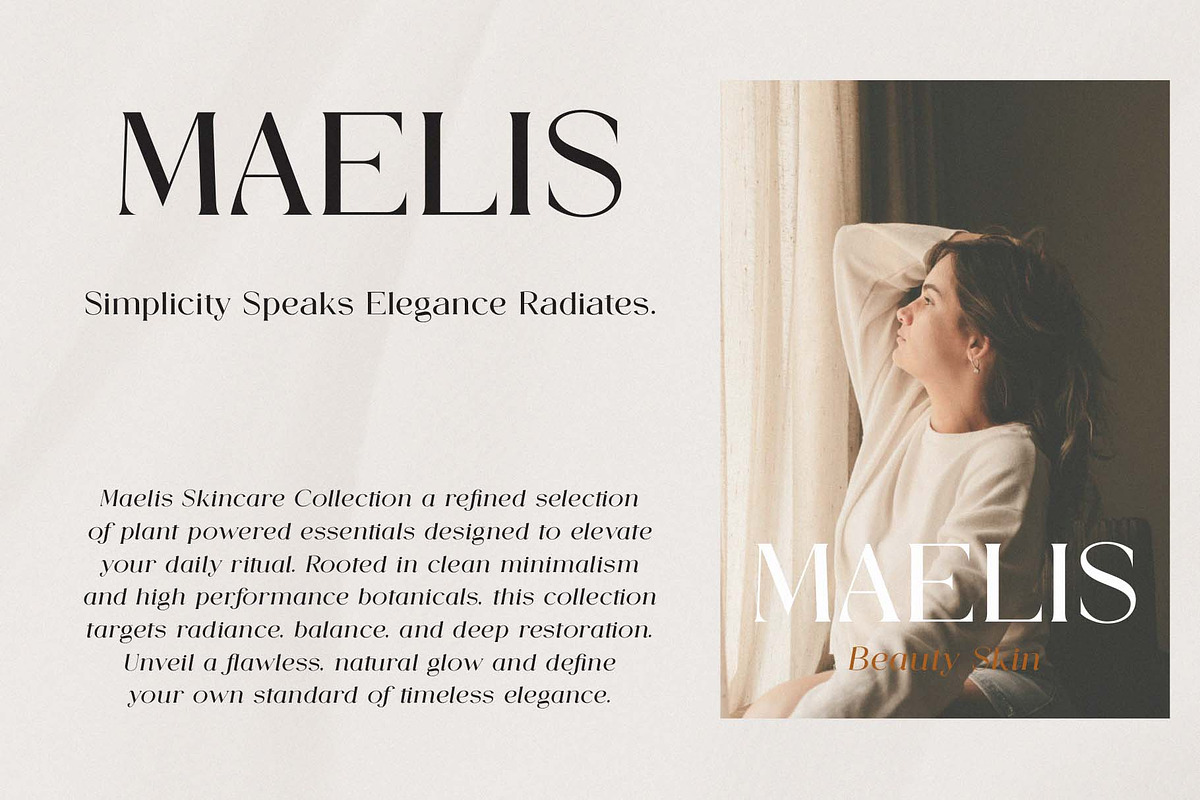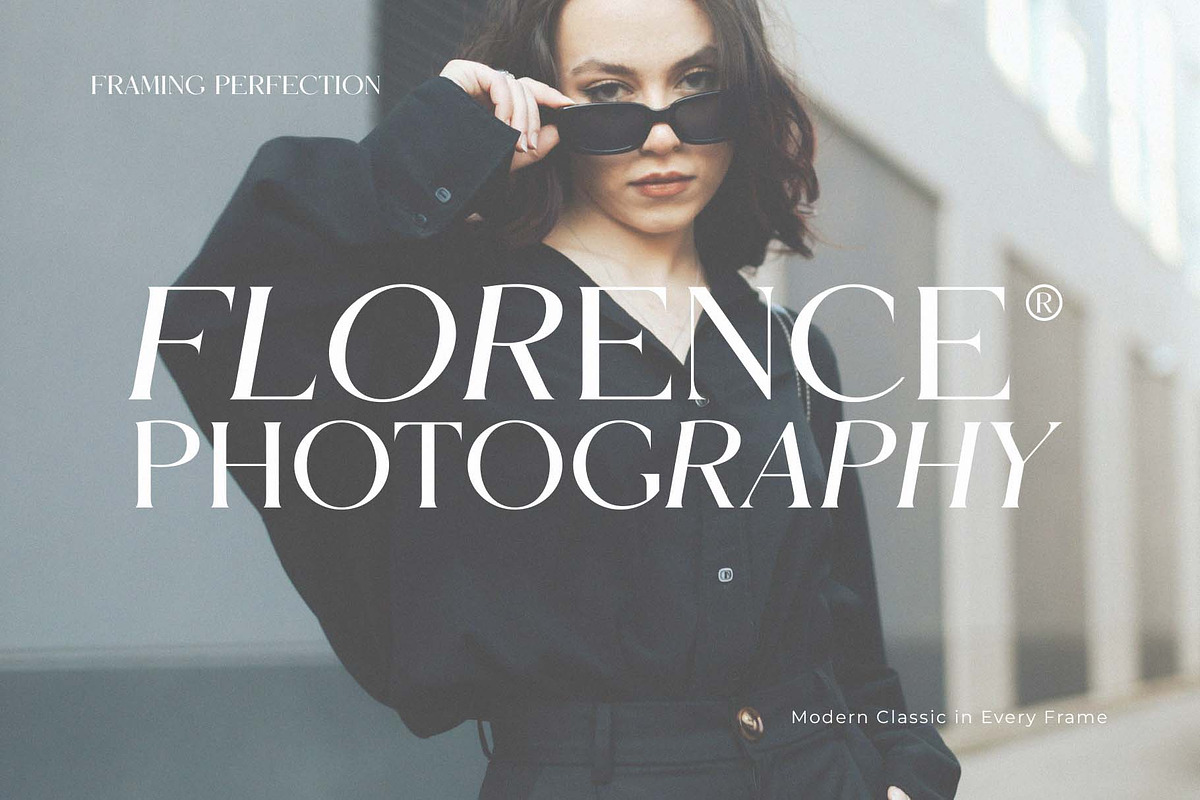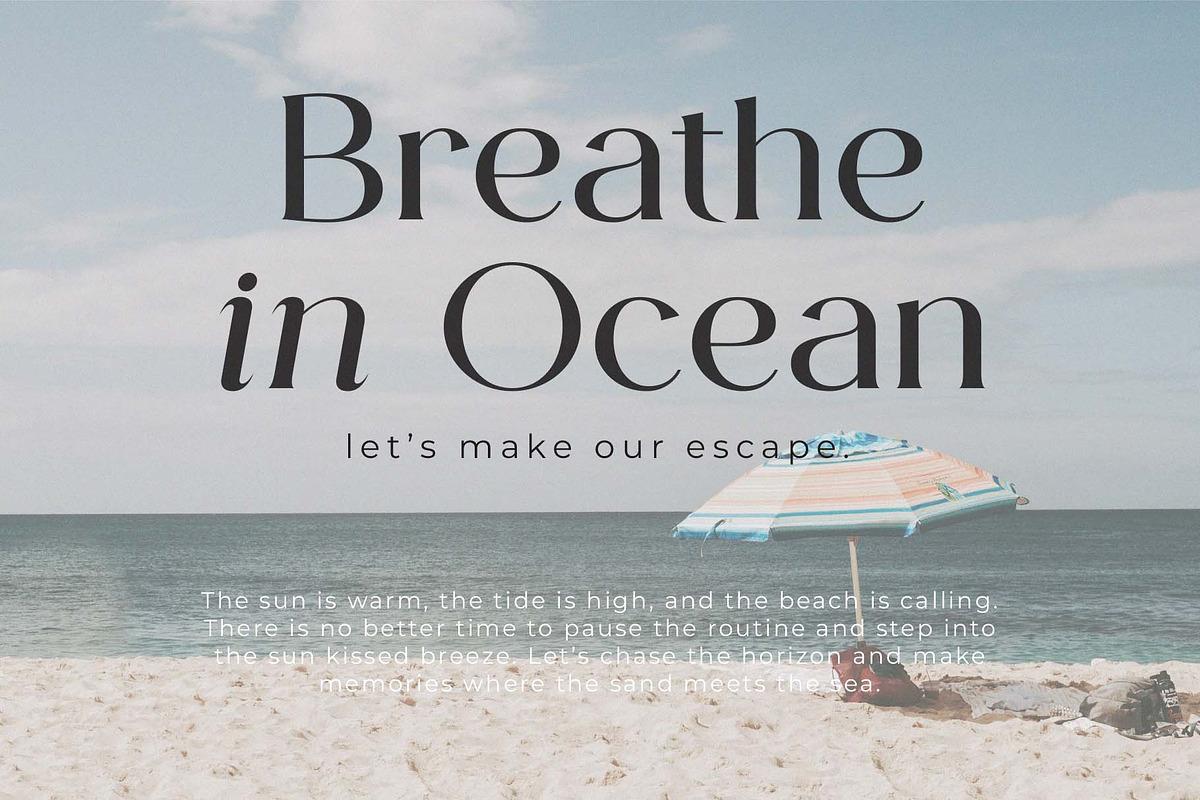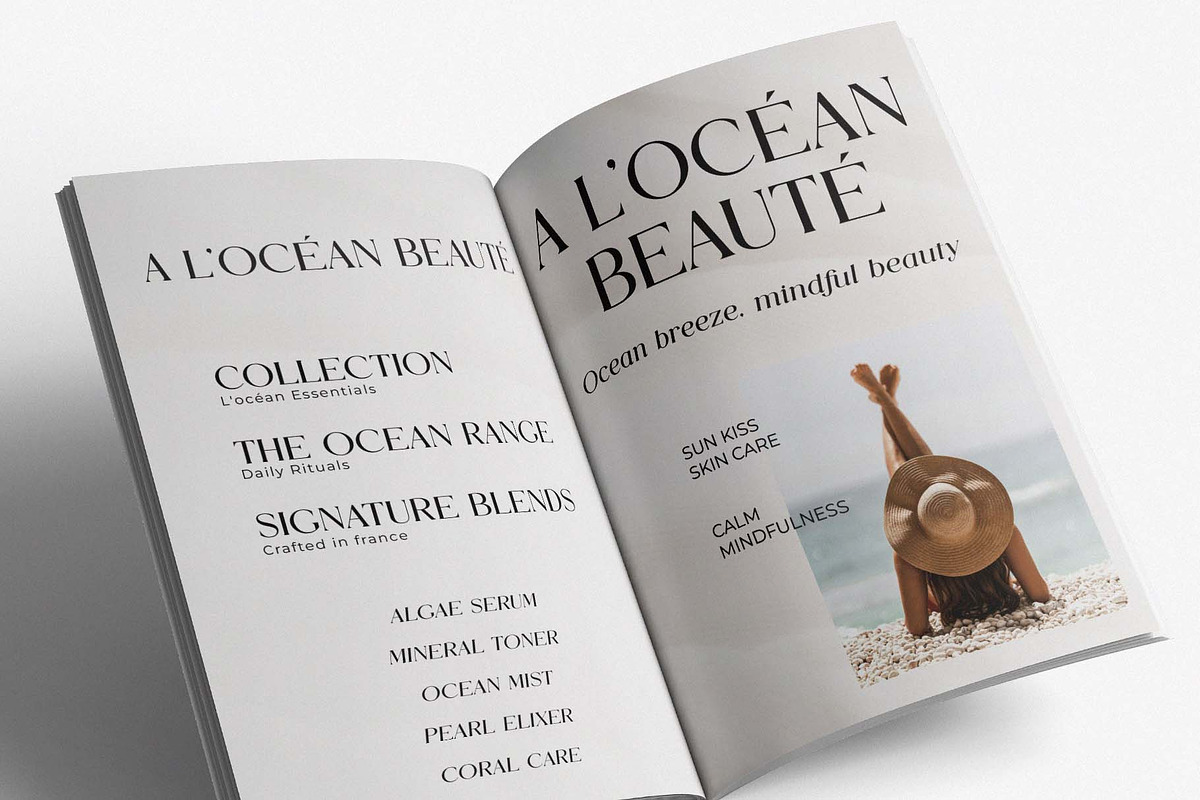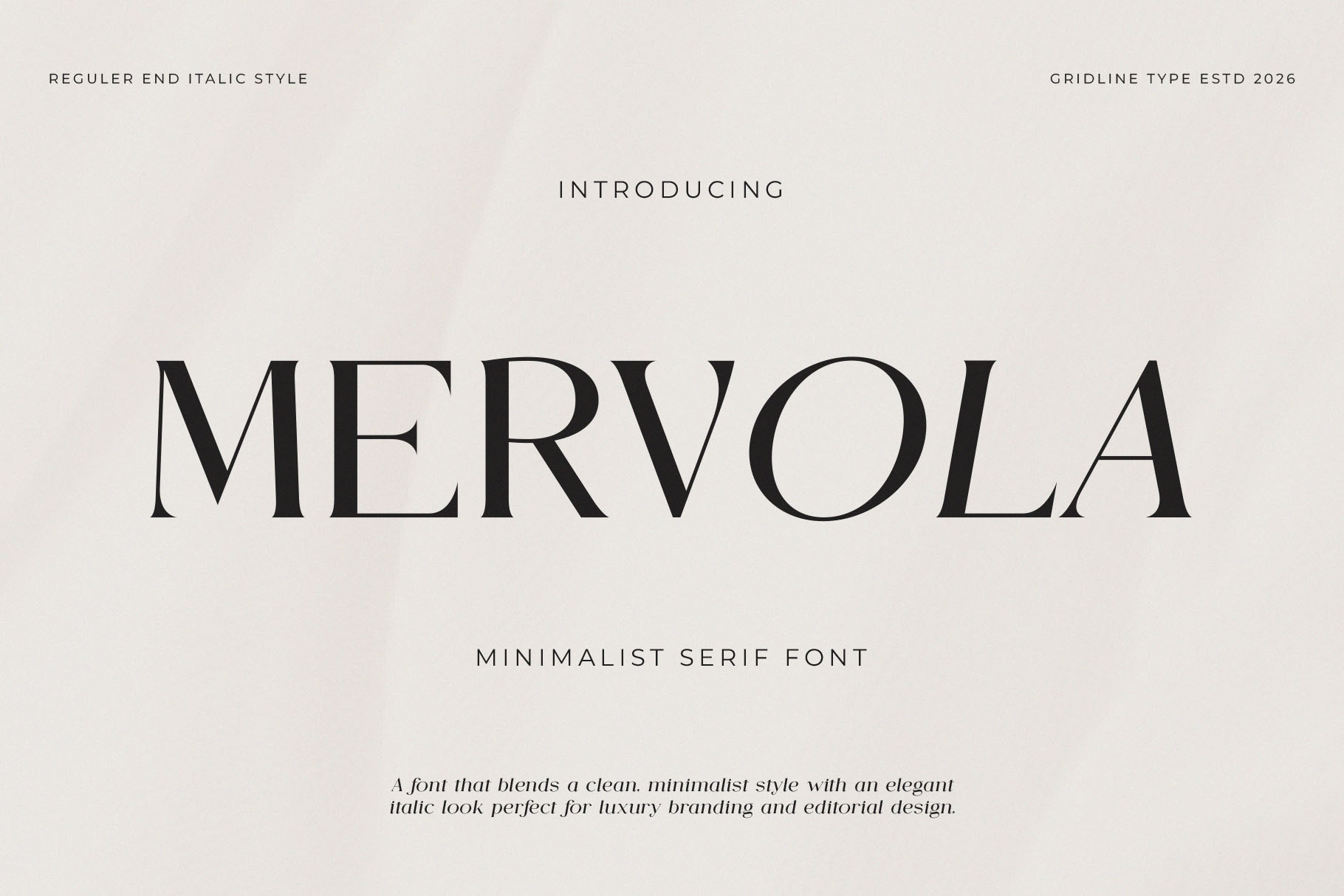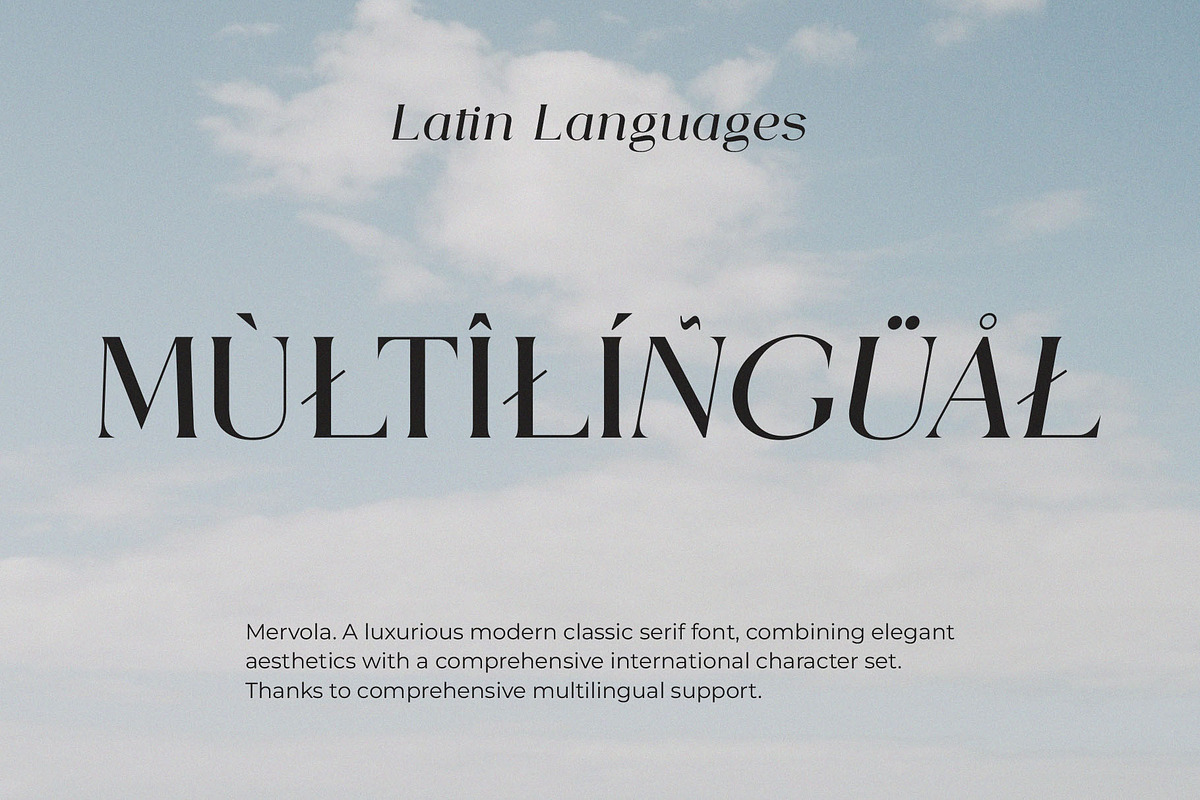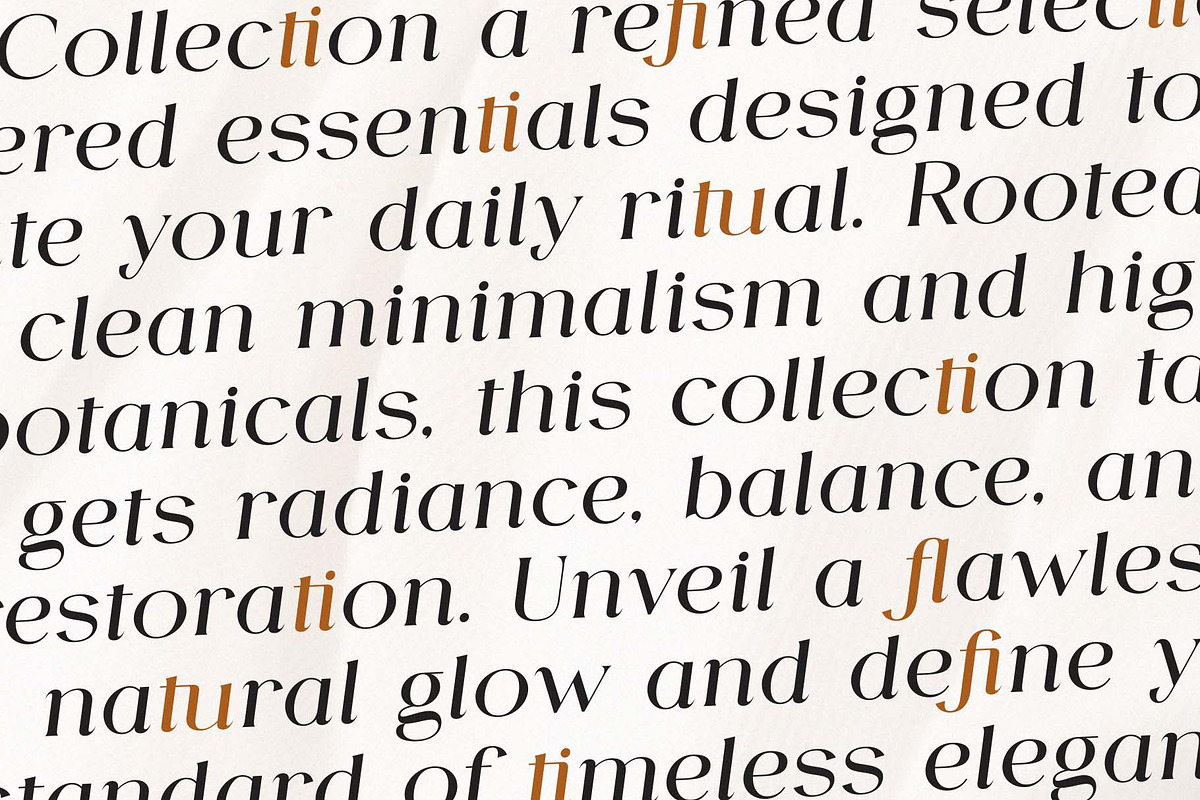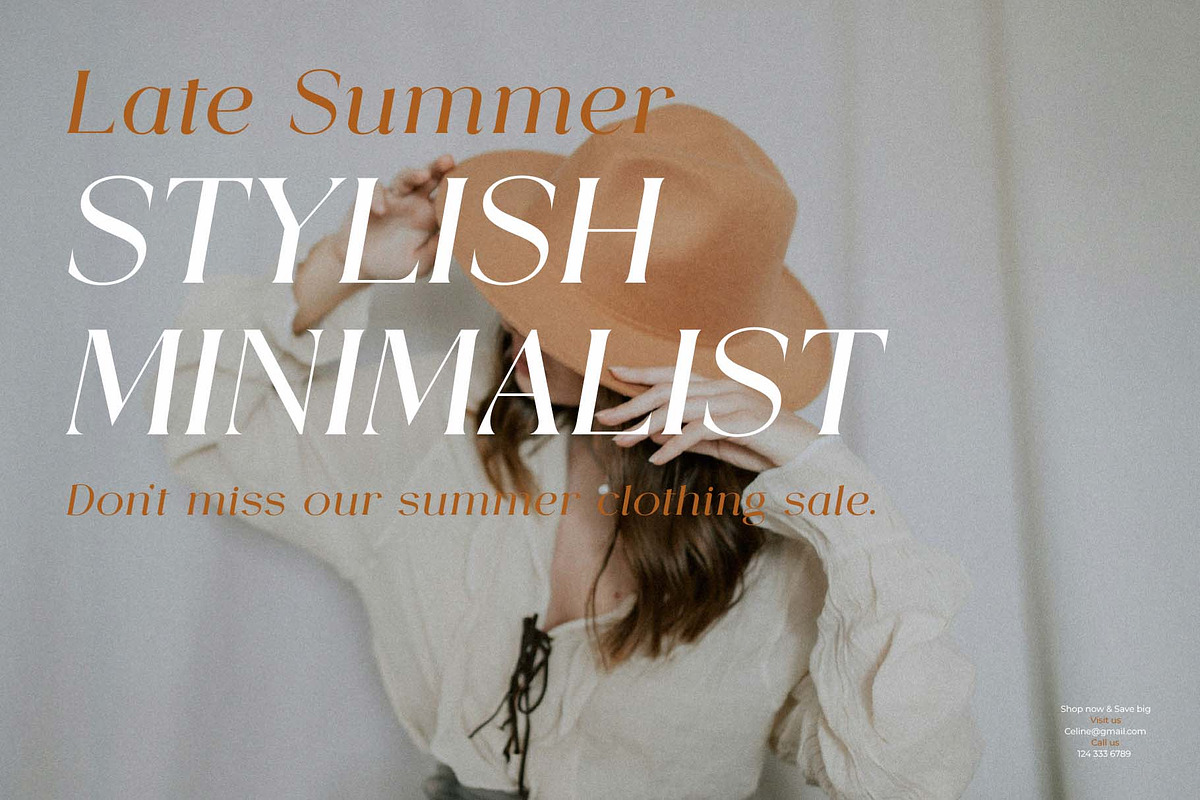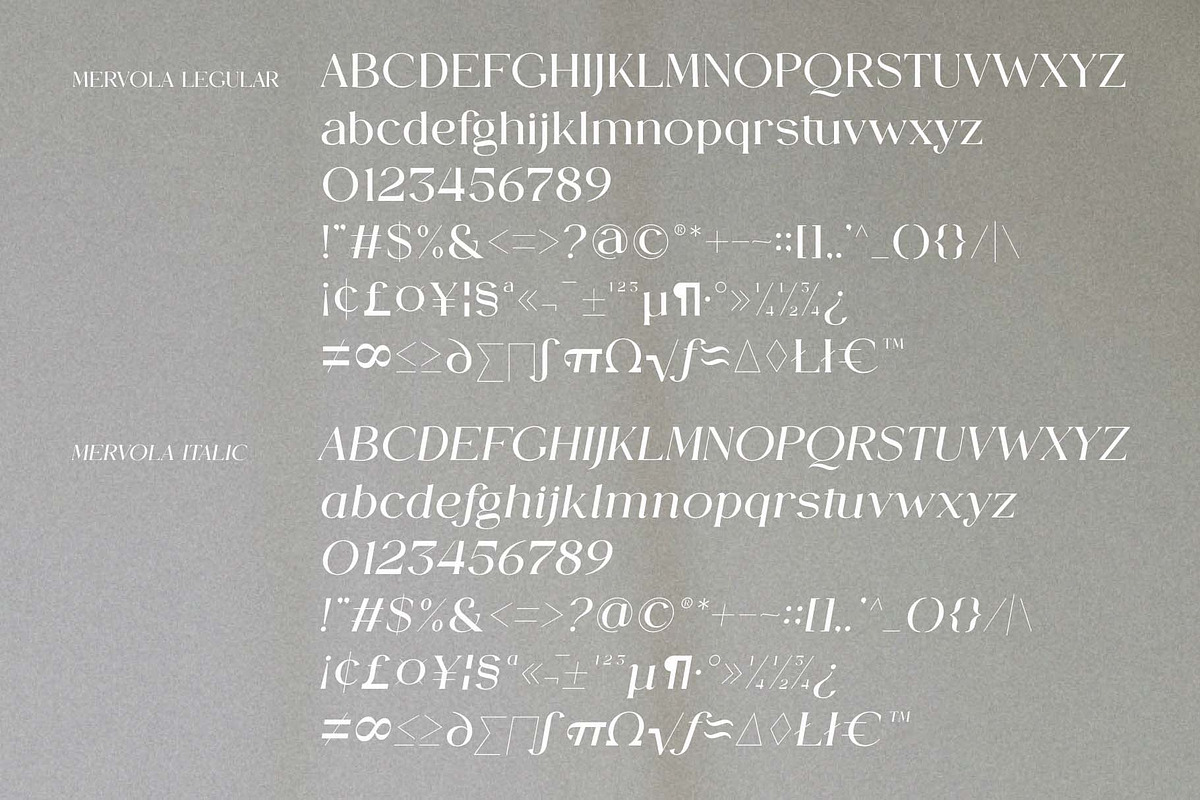
Mervola - Minimalist Serif Font
Introducing Mervola, an elegant, beautiful, and modern serif font. With its modern and minimalist aesthetic, Mervola brings a luxurious, classy, and clean style to a wide range of projects—such as websites, modern logos, brand identities, social media quotes, wedding stationery, magazines, and much more!
Mervola features unique, elegant uppercase letters (A–Z) and includes distinctive alternate characters, making it a beautiful and versatile font that can be tailored to your specific needs and projects.
Mervola is perfect for: logos, branding, wedding invitations, business cards, greeting cards, posters, magazines, social media, printable planner materials, and websites.
* Uppercase and lowercase letters
* Multilingual characters
* Numbers & punctuation
* Regular and Italic styles
* Stylistic alternates and ligatures (in specific fonts)